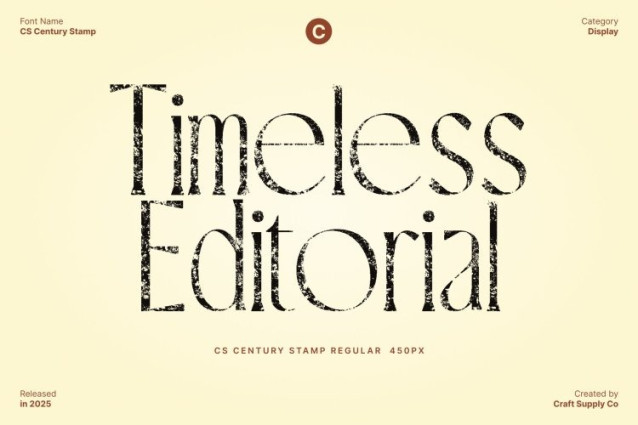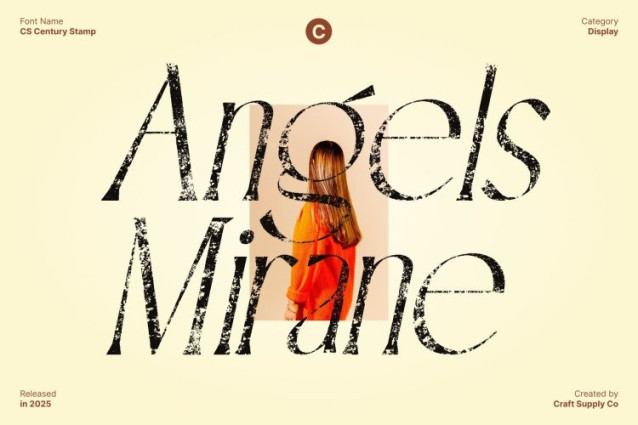
CS Century Stamp Font
CS Century Stamp Font This font features refined, elongated serif forms that create a tall and sophisticated silhouette. Its sleek proportions give every word a graceful presence, making your designs feel luxurious, polished, and unmistakably classy. This elevated structure adds a sense of elegance that enhances high-end layouts with ease.
Vintage Charm Through Stamp Texture
The subtle stamp effect adds depth and authenticity to the font’s refined letterforms. This textured detail introduces a nostalgic, vintage touch softening the elegance with a handcrafted feel. The blend of sophistication and aged texture gives your designs a unique, timeless character.
Beautiful and Versatile for Premium Designs
Whether used for logos, packaging, editorial titles, or branding, delivers a striking balance of beauty and restraint. Its elegant serif style ensures readability and refinement, while the stamped effect adds personality that sets your work apart.
Perfect for Classy, Historical, or Artistic Concepts
From luxury products to retro-inspired visuals, adapts beautifully. Its combination of tall elegance and vintage texture makes it ideal for projects seeking both modern grace and historical charm, providing designers with a font that is both expressive and enduring.